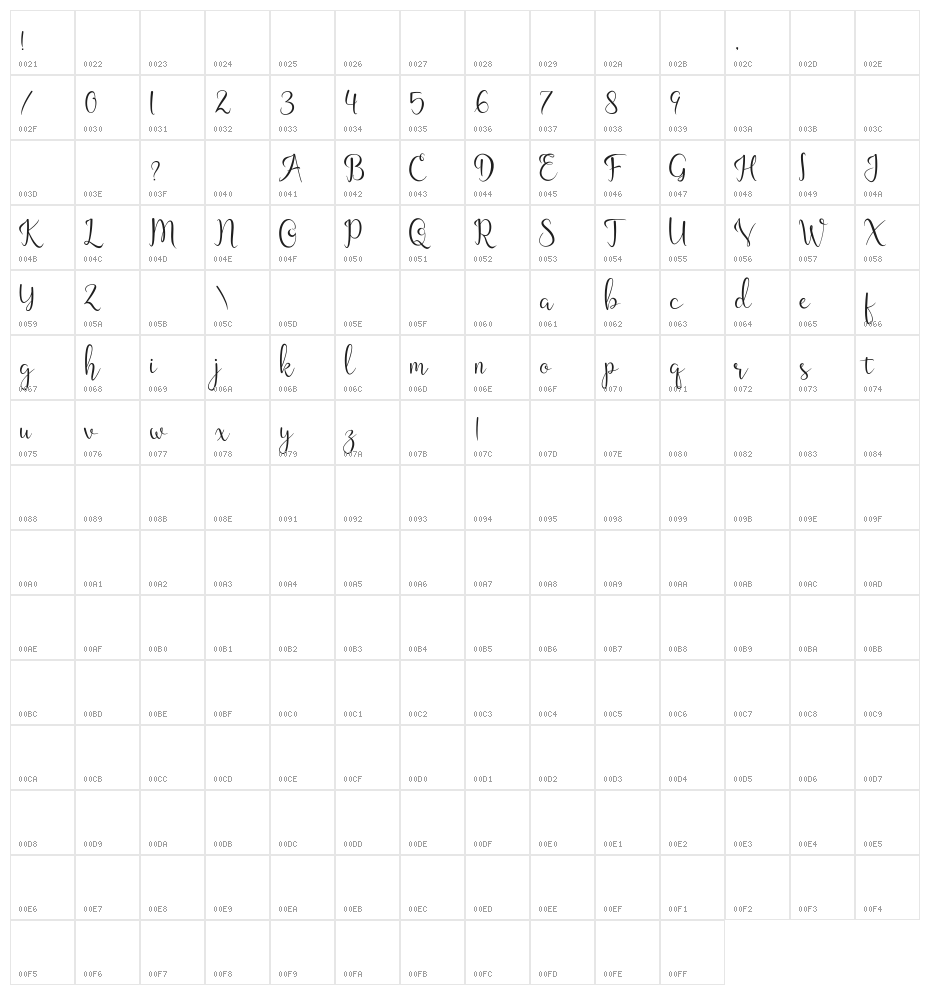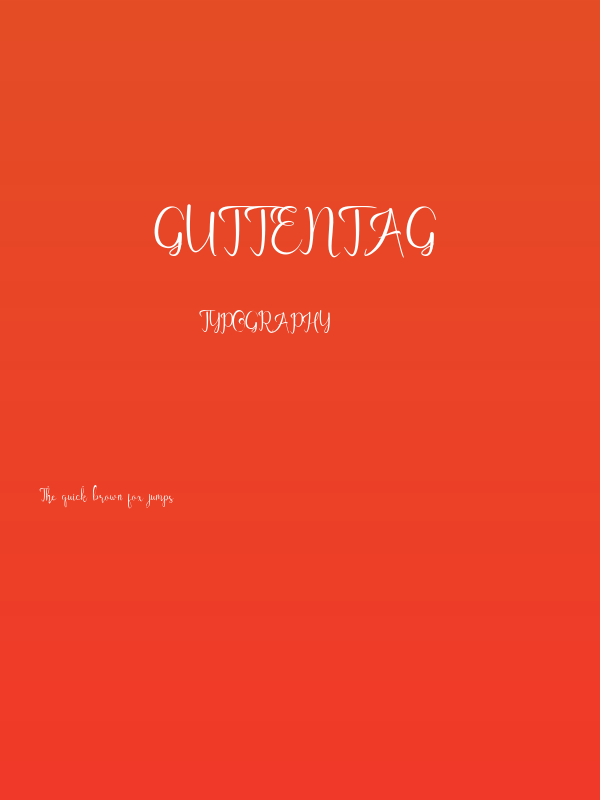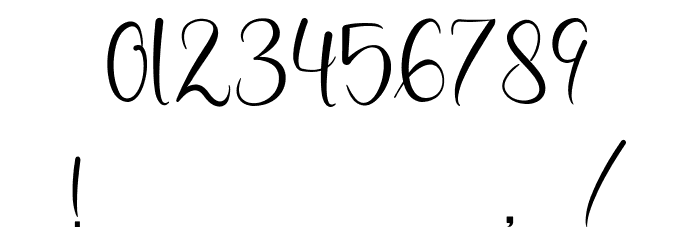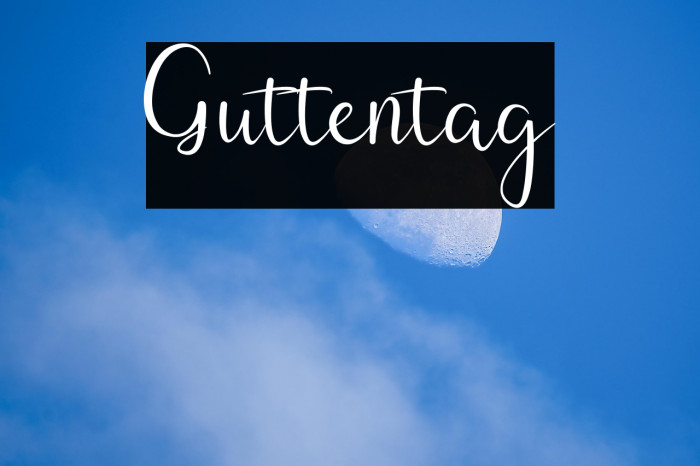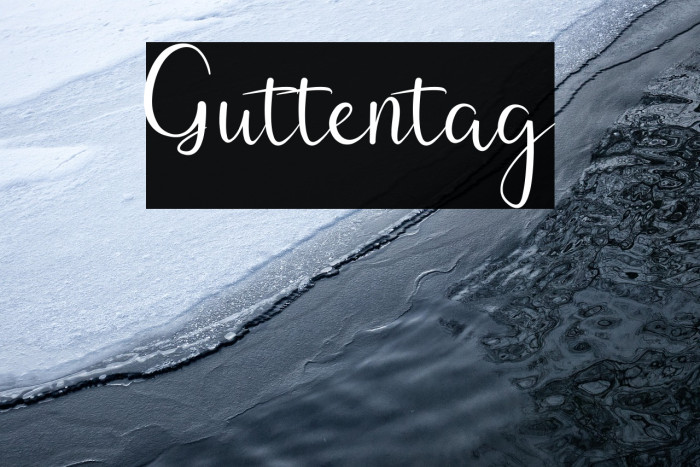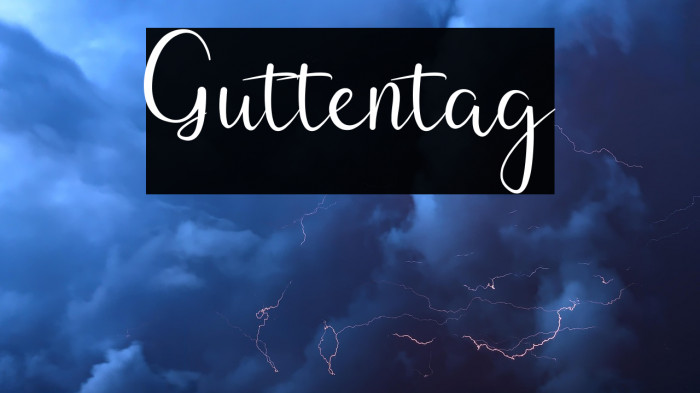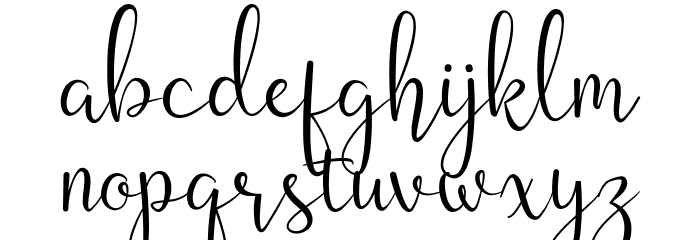
Guttentag Font
Guttentag Description
This font exudes a sense of elegance and fluidity, characterized by its cursive script style. The letters are interconnected, creating a seamless flow that mimics natural handwriting. The uppercase letters are ornate, with flourishes that add a touch of sophistication, while the lowercase letters maintain a consistent rhythm. The numerals are distinct yet harmonious with the overall style, and the special characters are designed to complement the script's aesthetic. This font is perfect for projects that require a personal or artistic touch, such as invitations, greeting cards, or branding materials.